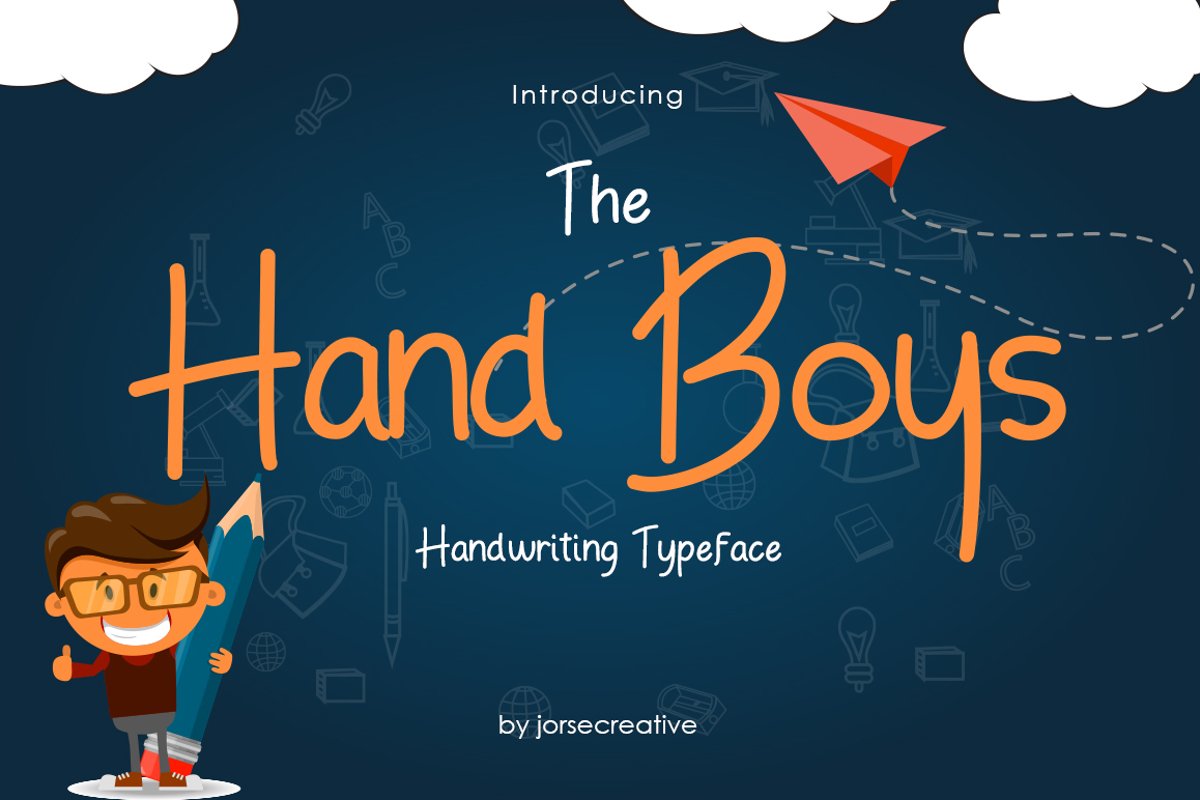
Hand Boys
Is a typeface signature font that is inspired from Boys handwriting style.
Suitable for making Greeting Cards, invites, quotes, book content,
T-shirt, child magazine contents, short story, poster label etc.